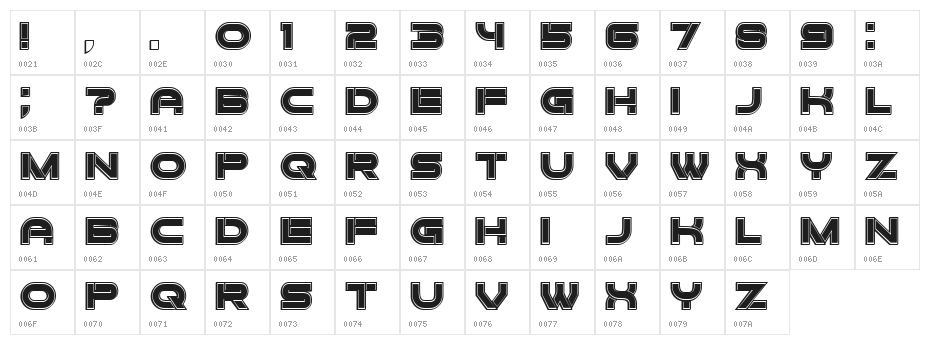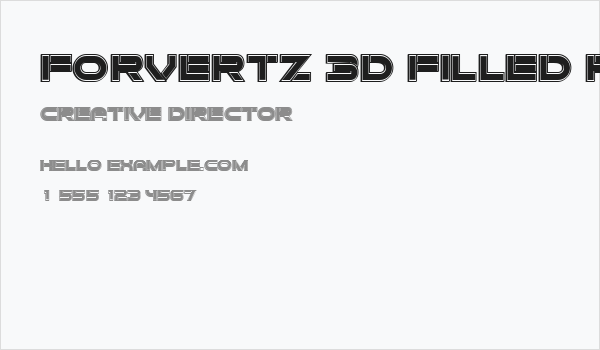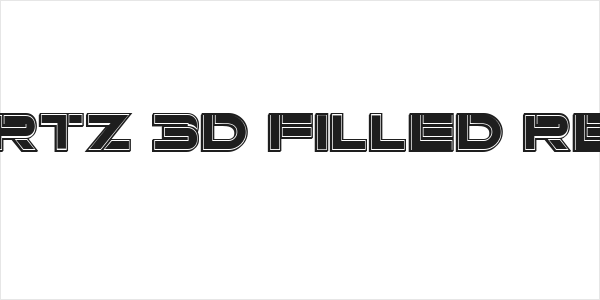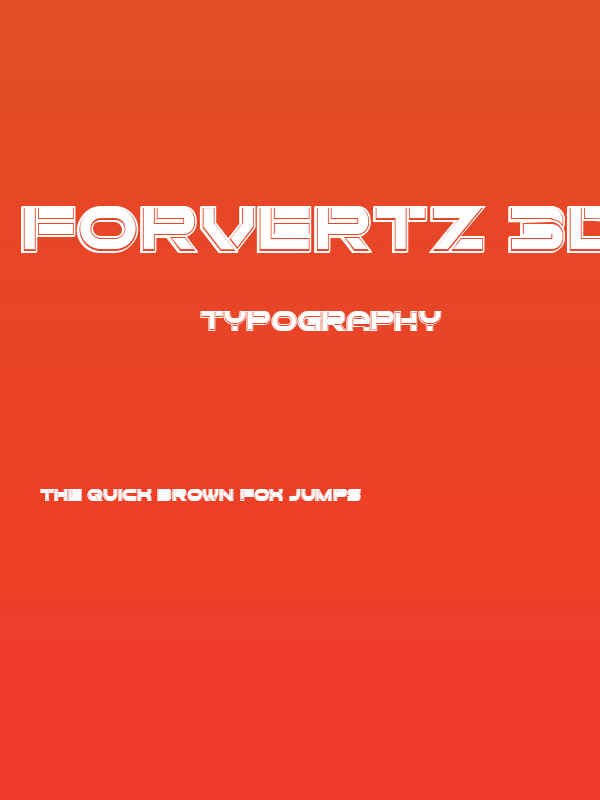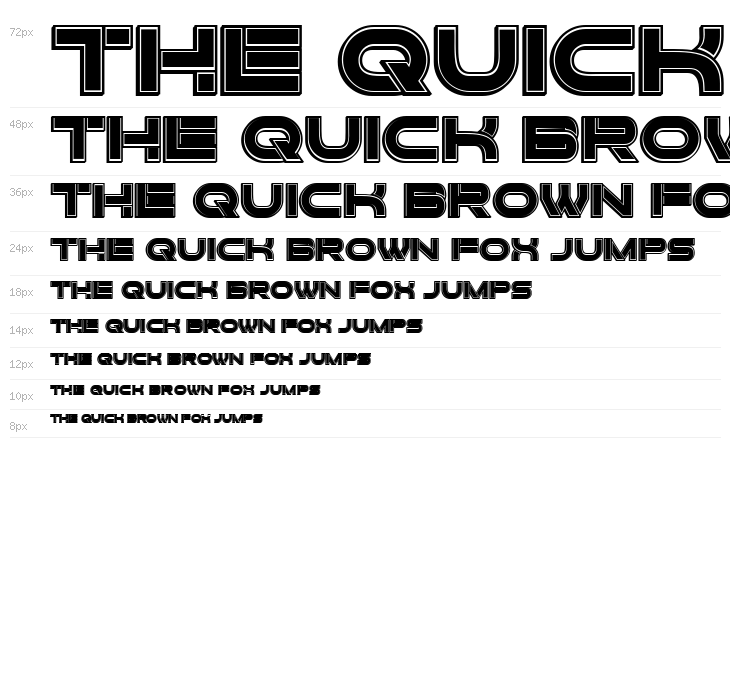
Forvertz 3D Filled Regular Font
Forvertz 3D Filled Regular Description
This font features a bold and futuristic design with a 3D filled effect that gives it a striking, dimensional appearance. The characters are constructed with thick, geometric lines and sharp angles, creating a sense of depth and modernity. The uppercase letters are uniform in height, while the numbers and special characters maintain the same bold style, ensuring consistency across all elements. The font's unique style is ideal for projects that require a standout, contemporary look.
| Proposed Projects | Ideal for sci-fi themed posters, video game titles, tech branding, and modern advertising campaigns. |